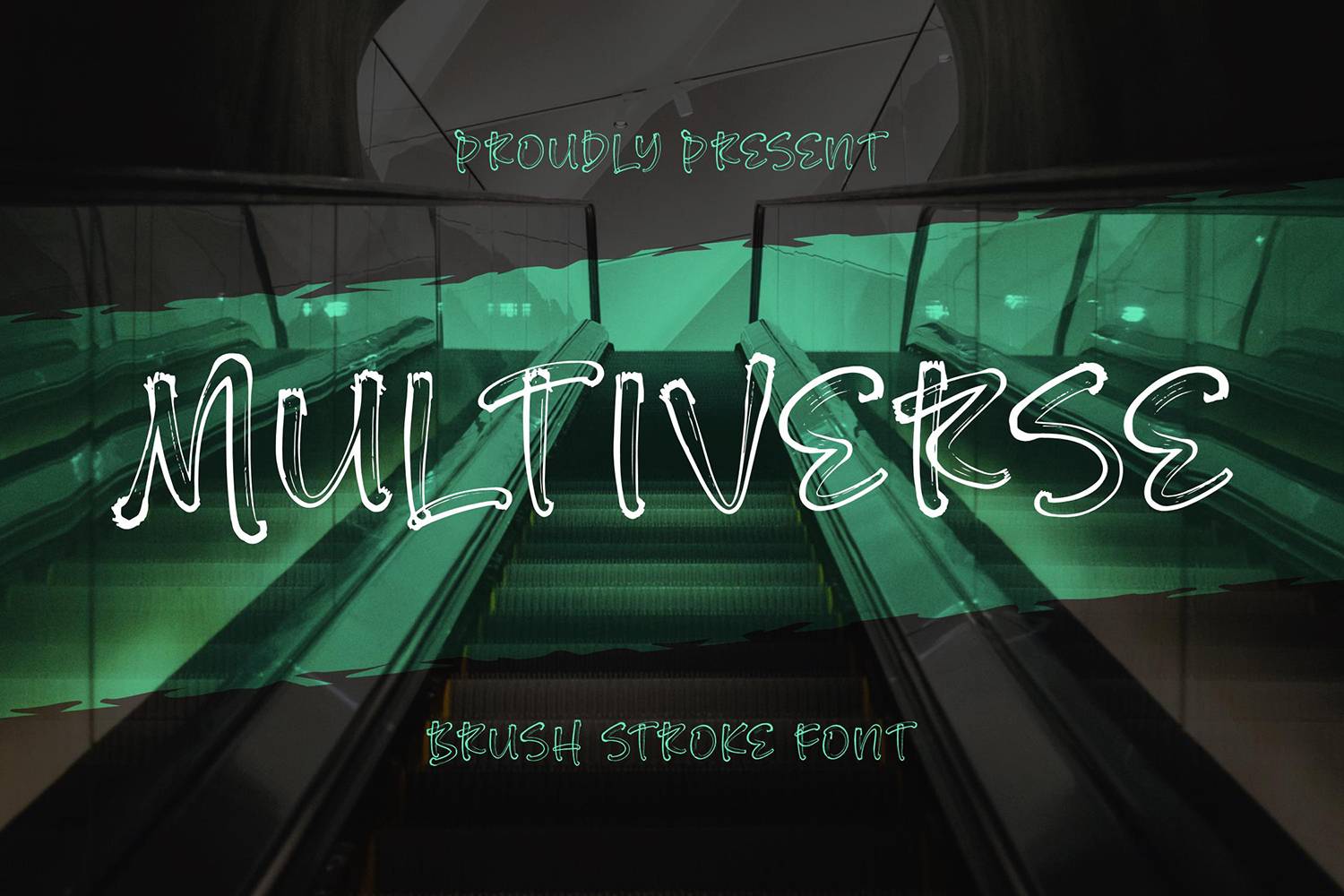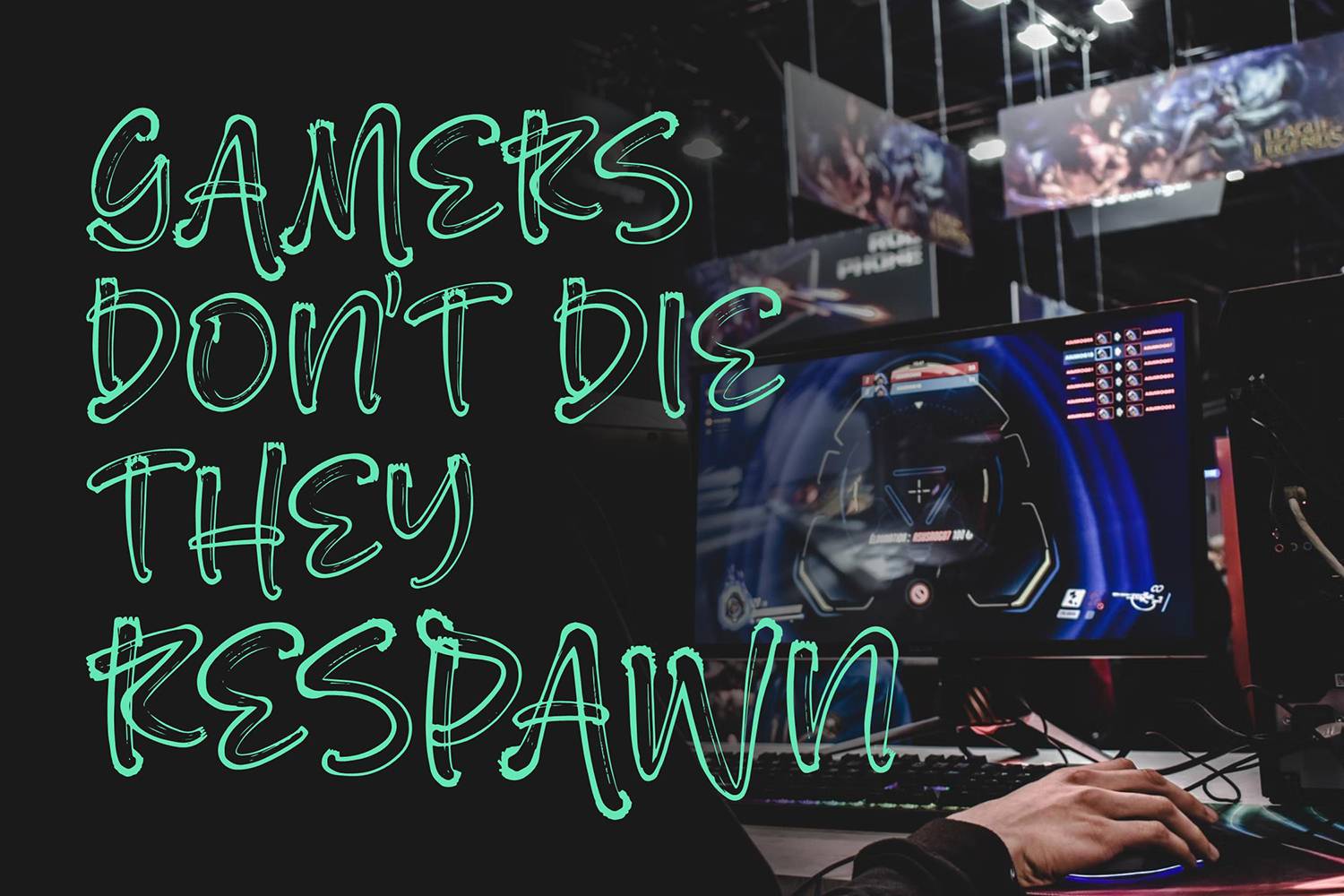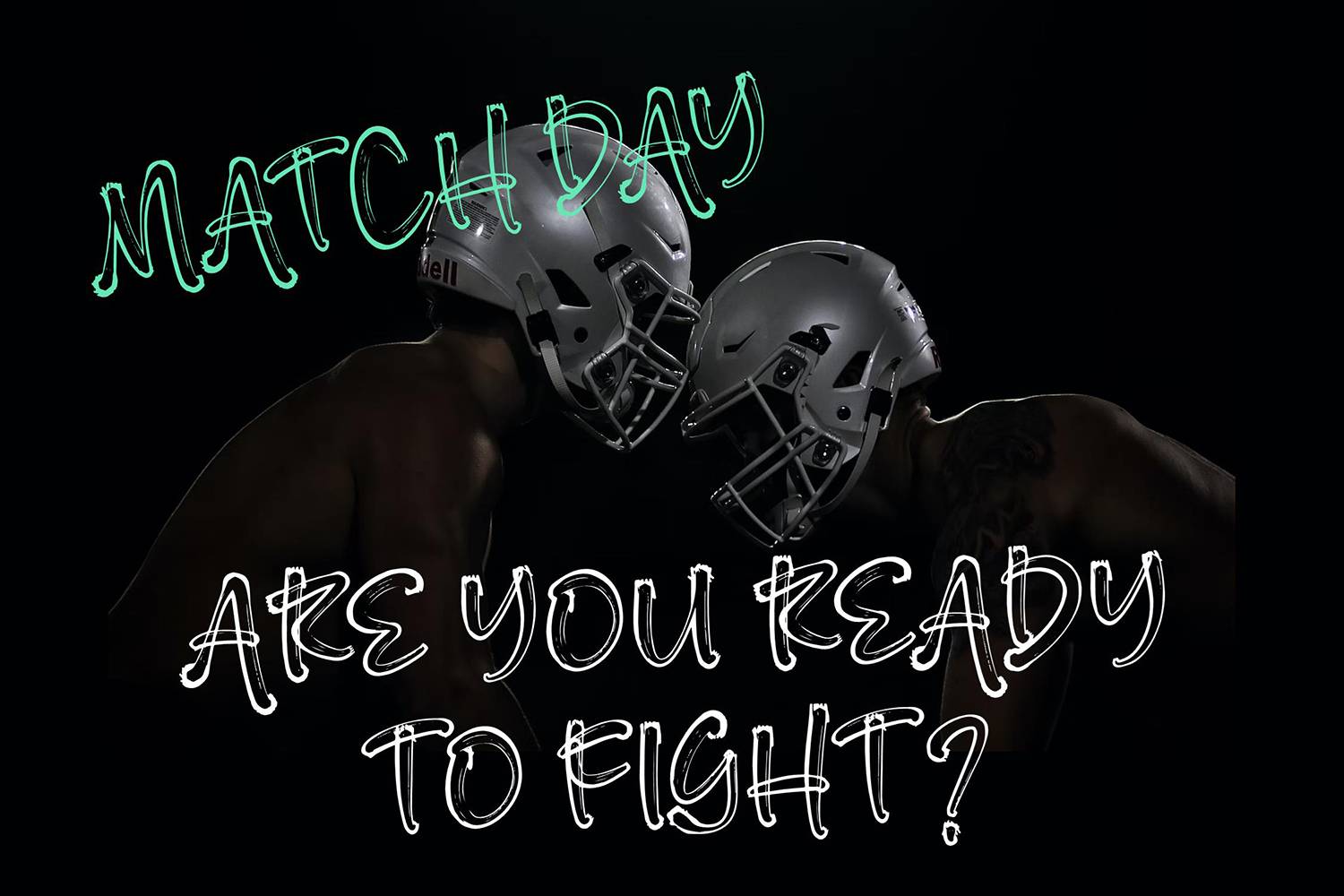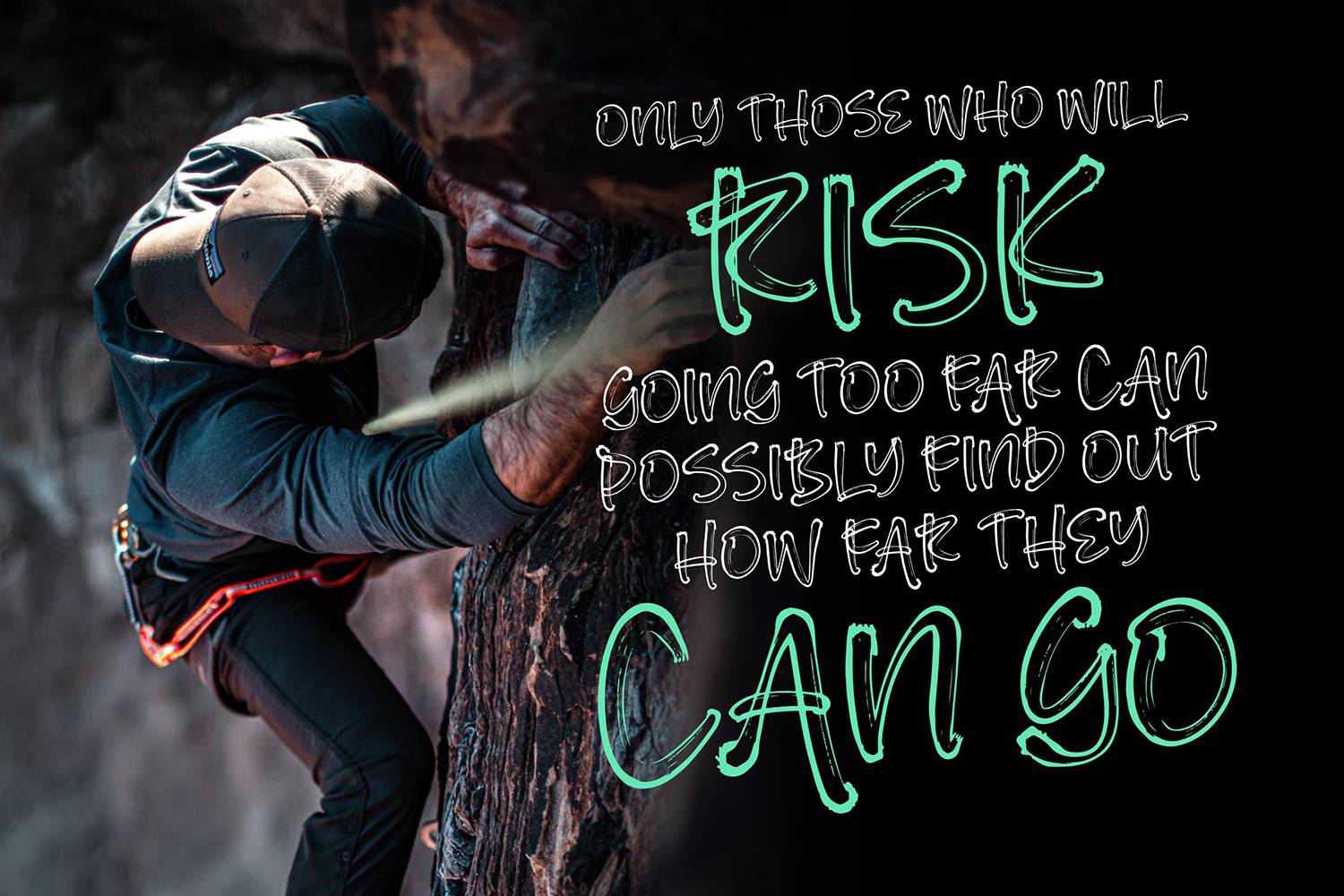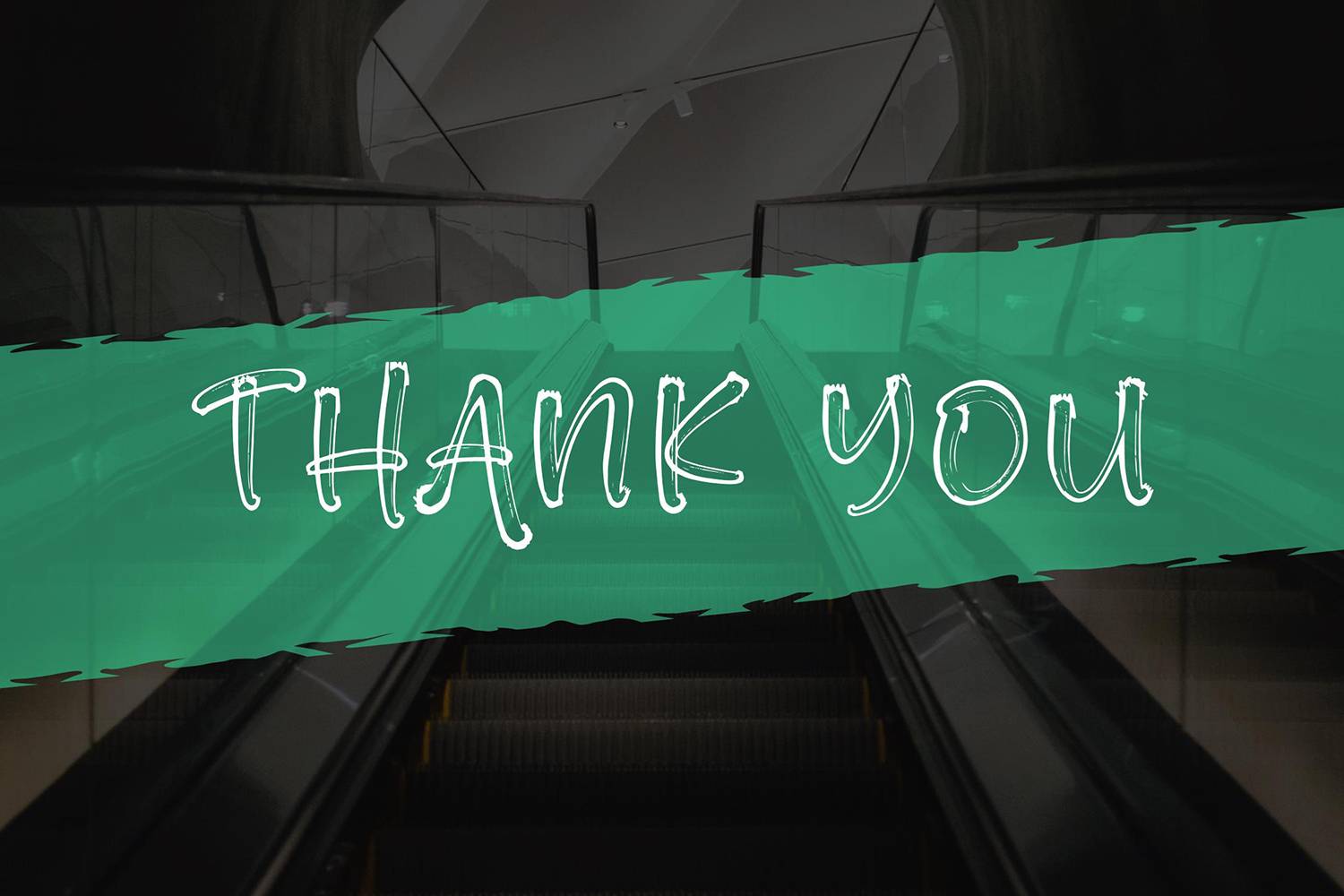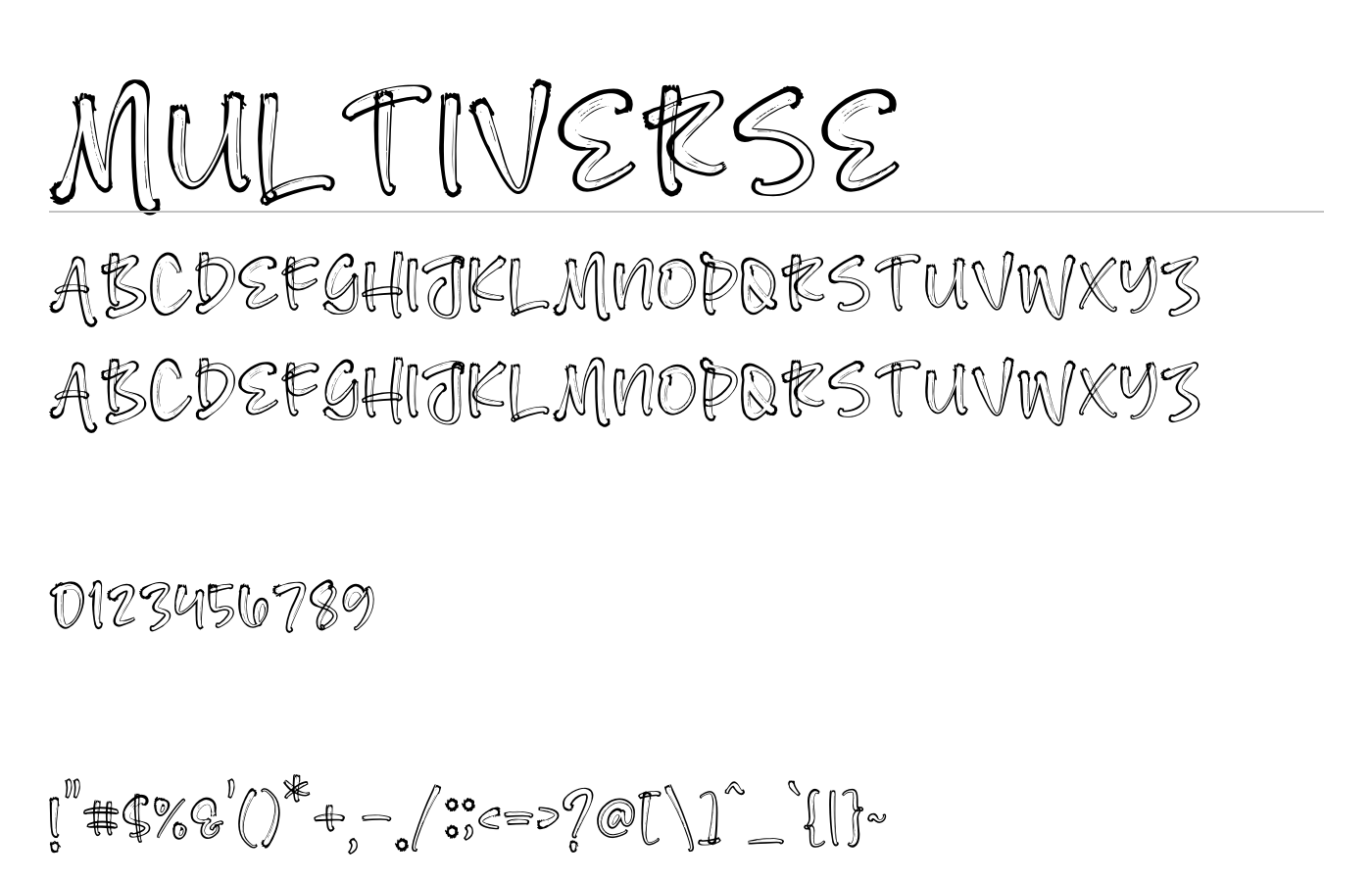
Multiverse is a playful, hand-drawn sans serif font that features a sketch-like, irregular stroke style with a casual, artistic flair. Its upright, medium-width letterforms with high x-height and lightly textured lines convey a sense of creativity and informality, making it perfect for fun, youthful branding, casual invitations, or quirky editorial designs. This font works well in eye-catching headlines or expressive logos where a lively, personalized touch is desired.
Multiverse Font
About Multiverse Font